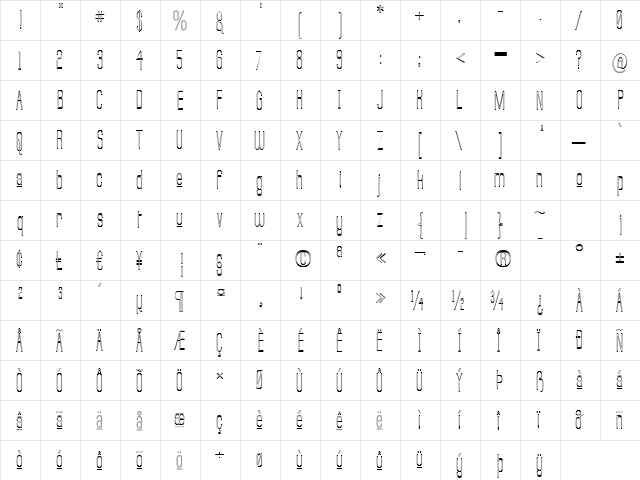
Labtop Upper Outline Regular
Design Context for Labtop Upper Outline Typeface
Labtop Upper Outline brings ornamental detail and strong personality to headlines and identities, where visual impact matters more than quiet functionality.
Font Pairing: Pair with a clean neutral sans-serif for body copy to let Labtop Upper Outline's character lead without overwhelming the composition.
Pro Tip: Treat Labtop Upper Outline as the centrepiece of your typographic hierarchy. One strong heading set in a decorative face can carry an entire layout.